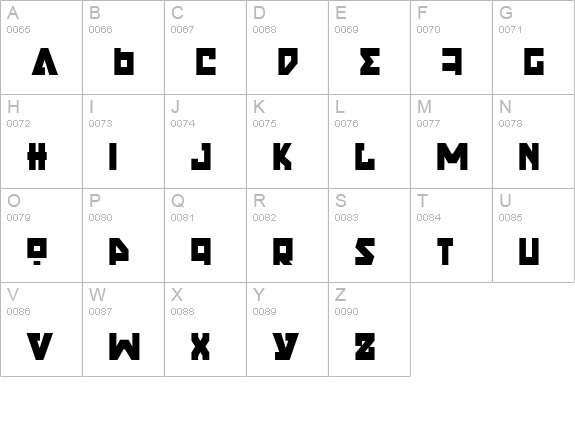
Nyet Semi-Condensed is a distinctive, condensed-width variant in the Nyet typeface family \xE2\x80\x94 well suited to design and typography projects.
Nyet Semi-Condensed font is a sleek and modern typeface that exudes sophistication and elegance. With its clean lines and balanced proportions, this font is perfect for a wide range of design projects, from branding to editorial design. The semi-condensed style of Nyet adds a touch of uniqueness, making it stand out from other fonts. What sets Nyet Semi-Condensed font apart is not only its aesthetic appeal but also the fact that it is freely available to download at FontsMarket.com. This means that you can easily access this high-quality font without any cost, making it a valuable addition to your font library. Whether you are a professional designer or a hobbyist looking to elevate your projects, Nyet Semi-Condensed font is a versatile and stylish choice that will enhance any design.